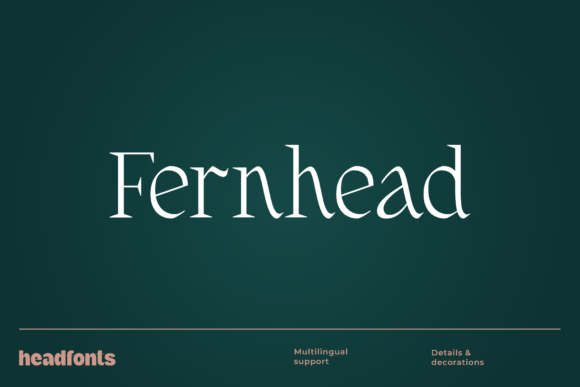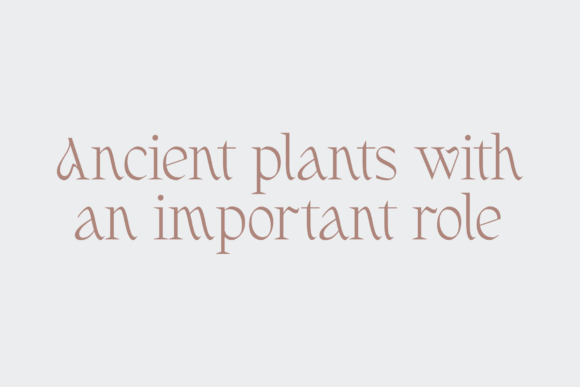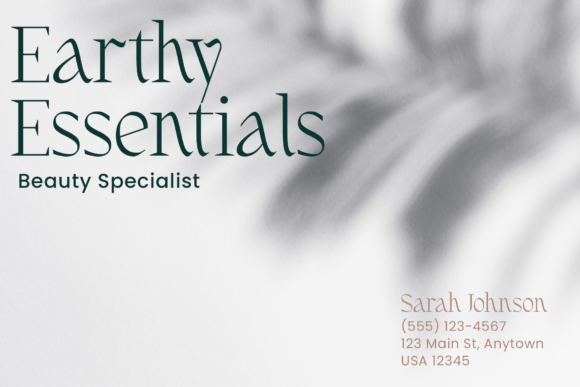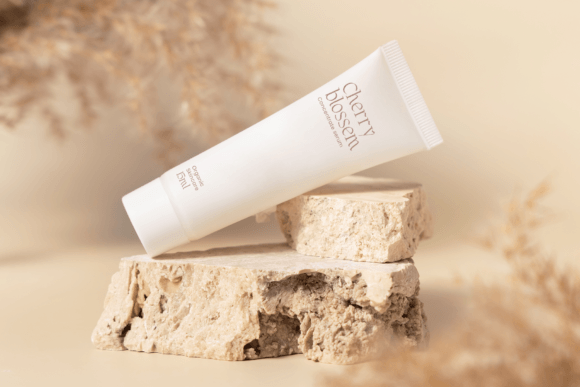
Fernhead Font: Elegant Serif Typography for Modern Branding
About the Fernhead Font
Meet Fernhead Font, a stunning font that brings a touch of elegance and professionalism to any design. Fernhead is an elegant serif font that stands out due to its decorative elements and organic curves. With a high x-height, nonconformist design, and decorative serifs, Fernhead follows the hand’s movements when writing with the pen. This typeface is guaranteed to add sparkle and grace to any of your designs.
Fernhead’s elegant, yet slightly rebellious nature makes it ideal for headlines, logos, and short-form text in branding projects targeting a sophisticated audience. Its decorative details shine in applications like invitations, posters, and packaging where visual impact is paramount. Avoid using it for body text or UI elements; the decorative serifs and high x-height hinder readability in extended blocks of text.
Pairing Fernhead effectively requires considering its inherent sophistication. A clean sans-serif like Montserrat or Open Sans provides a strong contrast and enhances readability when used alongside it for body text. For a more luxurious feel, consider pairing it with a classic serif like Garamond or a delicate script font like Great Vibes, depending on the desired level of formality.
Fernhead projects an air of confident elegance with a touch of playful unconventionality. It suits brands that value both refinement and a unique visual identity.